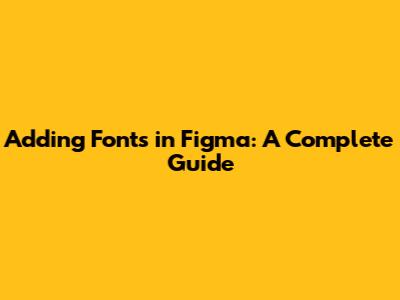
Hey there, design enthusiasts! Ever wondered how to add fonts in Figma and supercharge your design projects? Well, you've come to the right place! Figma is a fantastic tool, and one of the keys to making your designs pop is having the right fonts. Think of it like this: fonts are the clothes your words wear. They convey personality, set the tone, and make your designs visually appealing. So, let's dive into the nitty-gritty of adding fonts in Figma. Whether you're a newbie or a seasoned designer, this guide has got you covered with all the steps you need to know about Figma font integration. We'll explore various methods, from using Google Fonts to uploading your own custom fonts, ensuring you have the flexibility to bring your creative vision to life. No more boring default fonts – get ready to transform your designs with some awesome typography. In this comprehensive guide, we'll navigate the world of fonts in Figma, covering everything from the basics to advanced techniques, so you can make your designs look fantastic. We'll also talk about the different font formats that Figma supports and how to manage them effectively. Get ready to expand your typographic horizons and make your designs truly stand out!
Figma Font Basics: Understanding Your Font Options
Alright, before we get started, let's quickly go over the basics. Figma offers a bunch of cool font options right out of the box. You've got access to a wide variety of fonts, especially through Google Fonts, which are readily available within the platform. But it's not just about what's pre-loaded; Figma is flexible, offering several methods to customize your font library. You can add fonts in Figma in several ways. The best thing about Figma is that you are able to use whatever fonts you like. You can use standard fonts from Google Fonts, or you can import your custom fonts, so you can have any font that matches your branding. You can also import fonts from Adobe Fonts if you have a paid subscription. This means you're not stuck with a limited selection; you can bring in fonts that perfectly match your project's style. Knowing what's available and how to access it is essential. Think of it like this: you need to know what ingredients you have before you can start cooking. Familiarize yourself with the font panel and explore the pre-installed fonts. These are the building blocks you'll be using constantly. Experiment with different styles, weights, and sizes to get a feel for how they look. This initial exploration sets the stage for the more advanced methods. This includes choosing the right font, color, and size and how these elements interact with each other. Remember, the right font can make your design pop, while the wrong one can make it a total flop. Understanding the basics means you're not just adding fonts; you're using typography to communicate effectively.
Google Fonts and Figma
Google Fonts is your go-to source for a vast, free library of fonts. Luckily, Figma has integrated Google Fonts seamlessly, making it super easy to access them. When you're working on a design, all you need to do is open the text tool, select your text, and open the font dropdown. You'll find a massive list of Google Fonts right there, ready for use. Selecting a font is as simple as clicking on it. If you're looking for a specific font, you can easily search for it by name. If you're unsure which font to choose, you can scroll through the list and preview each font as you go. This immediate preview feature is awesome because it lets you see how the font looks in your design in real-time. Experiment with different weights and styles (like italic or bold) to see what works best. It's really that simple. This direct integration streamlines your workflow and ensures you have a huge range of typographic options at your fingertips. No need to leave Figma or install anything extra – everything you need is right there.
Accessing Adobe Fonts in Figma
If you're already a subscriber to Adobe Fonts, you're in luck! Figma also offers integration with Adobe Fonts. This means you can use the fonts from your Adobe library directly within Figma. Make sure you have the Adobe Creative Cloud app installed and that you're logged in. In Figma, go to the text tool, and open the font dropdown. Look for the Adobe Fonts section; you should see all your synced fonts. The process is pretty straightforward. However, you might encounter issues if your Adobe Fonts aren't properly synced. Double-check your Adobe Creative Cloud settings to ensure everything is connected correctly. Once synced, you'll have access to a wide range of professional fonts, expanding your design capabilities. The integration is super useful, especially if you're already paying for an Adobe subscription. It allows you to maintain consistency across your design projects. You can match the same fonts across your different design tools. This level of compatibility ensures a cohesive brand identity and efficient workflow.
Uploading Custom Fonts to Figma
Now, let's talk about adding custom fonts. Sometimes, you need a specific font that's not available on Google Fonts or Adobe Fonts. Maybe it's a font that matches your brand identity or a unique design element. Don't worry, Figma lets you upload and use your own custom fonts. However, Figma has a few tricks. First, you'll need a Figma account. Then, you'll need to install the Figma Font Installer. This is a small application that allows Figma to recognize and use your custom fonts. It's a quick and easy process, and once it's set up, you're good to go. You can download the Font Installer from Figma's website, follow the installation instructions, and restart Figma. After installing the Font Installer, the next step is to upload your fonts. Figma supports several font formats, including OTF and TTF. Make sure your custom font files are in one of these formats. After this is done, you're able to use your custom fonts right in Figma. After the installer is ready, simply open the font dropdown in Figma and search for your uploaded font. You'll see it listed among your other fonts. This allows you to bring any font you desire to Figma. Remember to respect copyright laws. Only use fonts that you have the right to use. Uploading custom fonts gives you complete control over your design's typography. It ensures that your designs are unique and perfectly aligned with your brand.
Installing the Figma Font Installer
So, how do you install this Font Installer? First off, go to the Figma website. Navigate to the resources or downloads section. You should find the Figma Font Installer there. Download the installer for your operating system (Windows or macOS). The installation process is pretty straightforward. Follow the on-screen prompts, and once the installation is complete, you'll likely need to restart Figma. Make sure you close Figma completely and then relaunch it. This ensures that the newly installed Font Installer is recognized. If you are having troubles, check for updates, or contact Figma's support team. They are always happy to help. With the Font Installer in place, you can confidently add and use your custom fonts in Figma. This is a game-changer because it gives you ultimate flexibility and control over your typographic choices. With the correct installation, you can now use your custom fonts without any limits.
Uploading OTF and TTF Fonts
Once you have the Font Installer up and running, it's time to upload your OTF and TTF fonts. Make sure your font files are in either OTF (OpenType Font) or TTF (TrueType Font) format. These are the most common formats, and Figma supports them. Locate your font files on your computer. After finding them, open Figma. Start a new project or open an existing one. Select the text tool. In the font dropdown, you should now see your uploaded fonts alongside your other fonts. Click on the font you want to use. You can also search for the font by name in the search bar. This process is very easy, and you don't need any complex steps to make it work. Just make sure the file formats are right. Ensure you have the proper licenses for your fonts. This step is super important, as it ensures you are using the fonts legally. By using this method, you can expand your font library and add a personalized touch to your designs.
Font Management and Organization Tips
Okay, so you've added fonts. Now what? Managing your fonts effectively is key to maintaining a clean and efficient workflow. Imagine your font library as your design studio's storage. If it's a mess, you'll struggle to find what you need and waste time. Organizing your fonts can save you time and help you maintain design consistency. Create a system for organizing your fonts. Start by categorizing your fonts based on their style or purpose. For example, create categories for serif, sans-serif, display, and handwritten fonts. You might also create categories for fonts used for headings, body text, or specific branding. Use descriptive names for your font styles so that your team knows how each font is used. Regularly review your font library and remove fonts you no longer use. This helps to reduce clutter and makes it easier to find the fonts you need. Use font management tools that are available. Using those tools can help you organize and activate/deactivate fonts. This will help you streamline your design process and enhance team collaboration. Proper font management ensures that your design projects are consistent and easy to navigate.
Creating Font Styles and Libraries
Figma offers the ability to create font styles, which is an amazing feature for maintaining consistency across your designs. Font styles allow you to save specific font settings (font, size, weight, and color) and reuse them throughout your project. Create a text object with your desired font settings. In the design panel on the right side of the screen, click the four-dot icon (Style). From the menu, select the option to create a style. Give your style a descriptive name (e.g., 'Heading 1', 'Body Text'). Doing this helps you and your team quickly apply the same font settings consistently. You can modify the original style, and every instance will automatically update. This approach is more efficient and reduces the risk of errors or inconsistencies. Font Libraries help you keep your styles organized. Figma allows you to publish these styles as components to a shared library. This shared library can be accessed by your entire design team. To create a library, simply publish your styles as components to a team library. This will allow every member of your team to use your preset font styles. Using shared libraries ensures everyone on your team is using the same fonts. Creating and using font styles and libraries dramatically improves your workflow. It also improves brand consistency and collaboration.
Best Practices for Font Selection
Choosing the right fonts is as important as knowing how to add fonts in Figma. Consider the purpose of your design and the message you want to convey. Different fonts evoke different emotions. For example, serif fonts (like Times New Roman) can feel traditional and trustworthy, while sans-serif fonts (like Helvetica) can feel modern and clean. Select fonts that are legible and readable. Make sure your fonts are easy to read. This is extremely important, especially for body text. Pay attention to the font's size, line height, and spacing. Test your font selections in the context of your design. See how the fonts look on different backgrounds and at different sizes. Use a limited number of fonts to maintain visual consistency. It is best to stick to a few fonts in your design to keep it looking clean. Consider pairing fonts that complement each other. A common strategy is to pair a serif font for headings with a sans-serif font for body text. When in doubt, seek feedback from others. Ask your team members or clients for their opinions. They may have different perspectives on your font choices. By following these best practices, you can make informed decisions and create designs that effectively communicate your message.